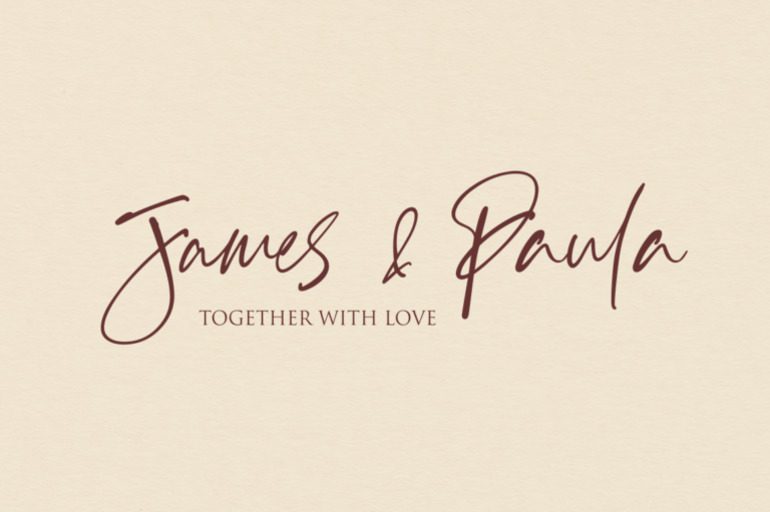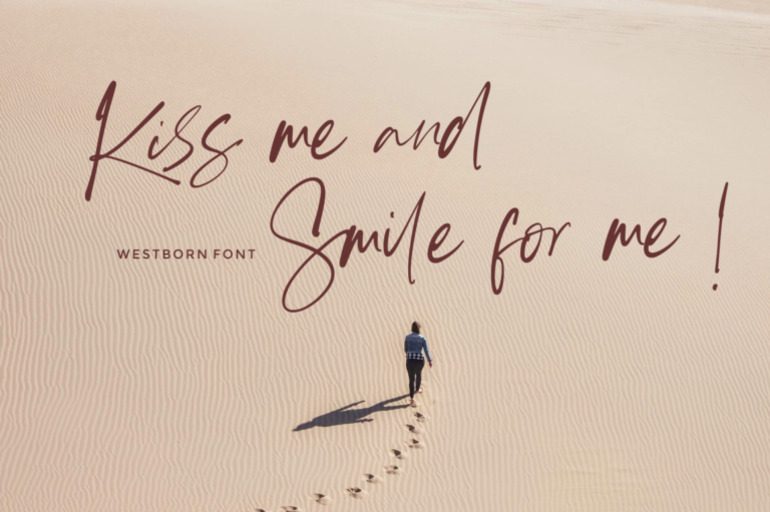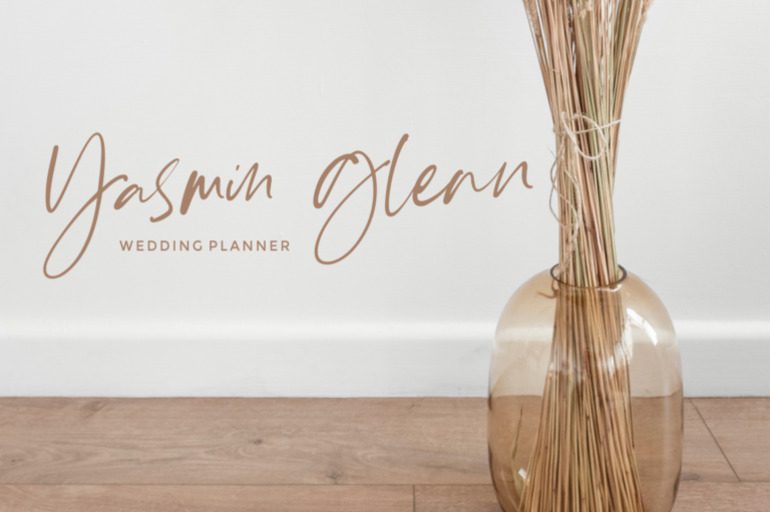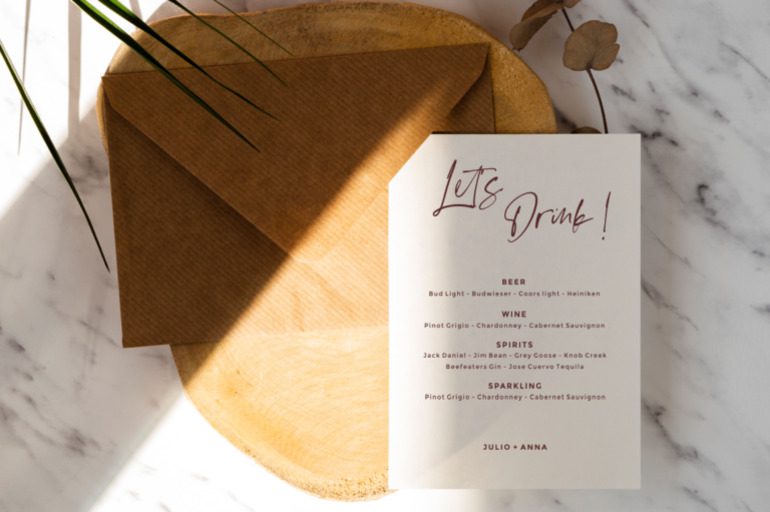
Westborn Font
Experience the rugged elegance of Westborn Script, a flowing and expressive font. With its bold strokes and organic curves, Westborn Script adds a touch of authenticity to any project. Perfect for branding, packaging, and lifestyle designs. Unleash your creativity with this captivating script.